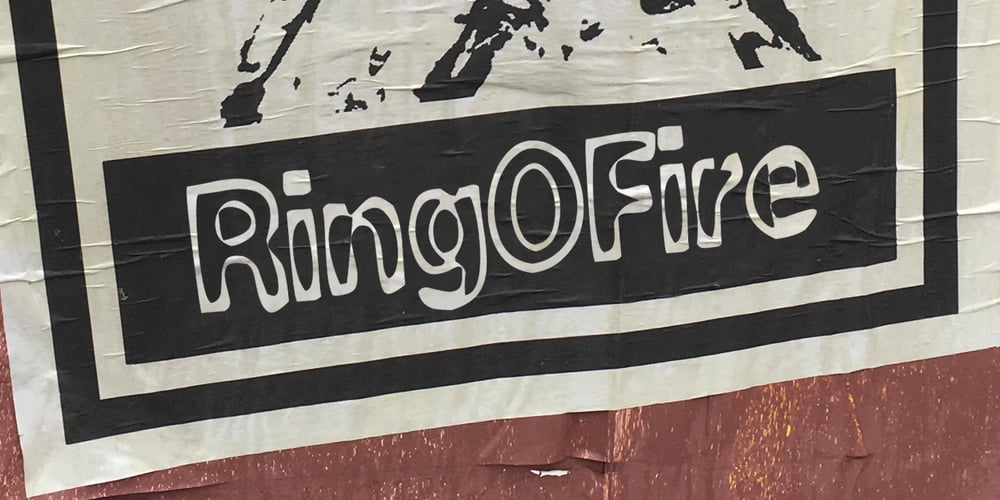
Ring O Fire
Ring O Fire font
Ring O Fire Font Family was designed by Todd Dever and published by Cool Fonts. Ring O Fire contains 1 styles and family package options. Ring O Fire was inspired by a game I used to play where you suspend a coin over a glass with a paper napkin and take turns burning holes in the napkin with a cigarette until the coin drops. Is that weird or what?